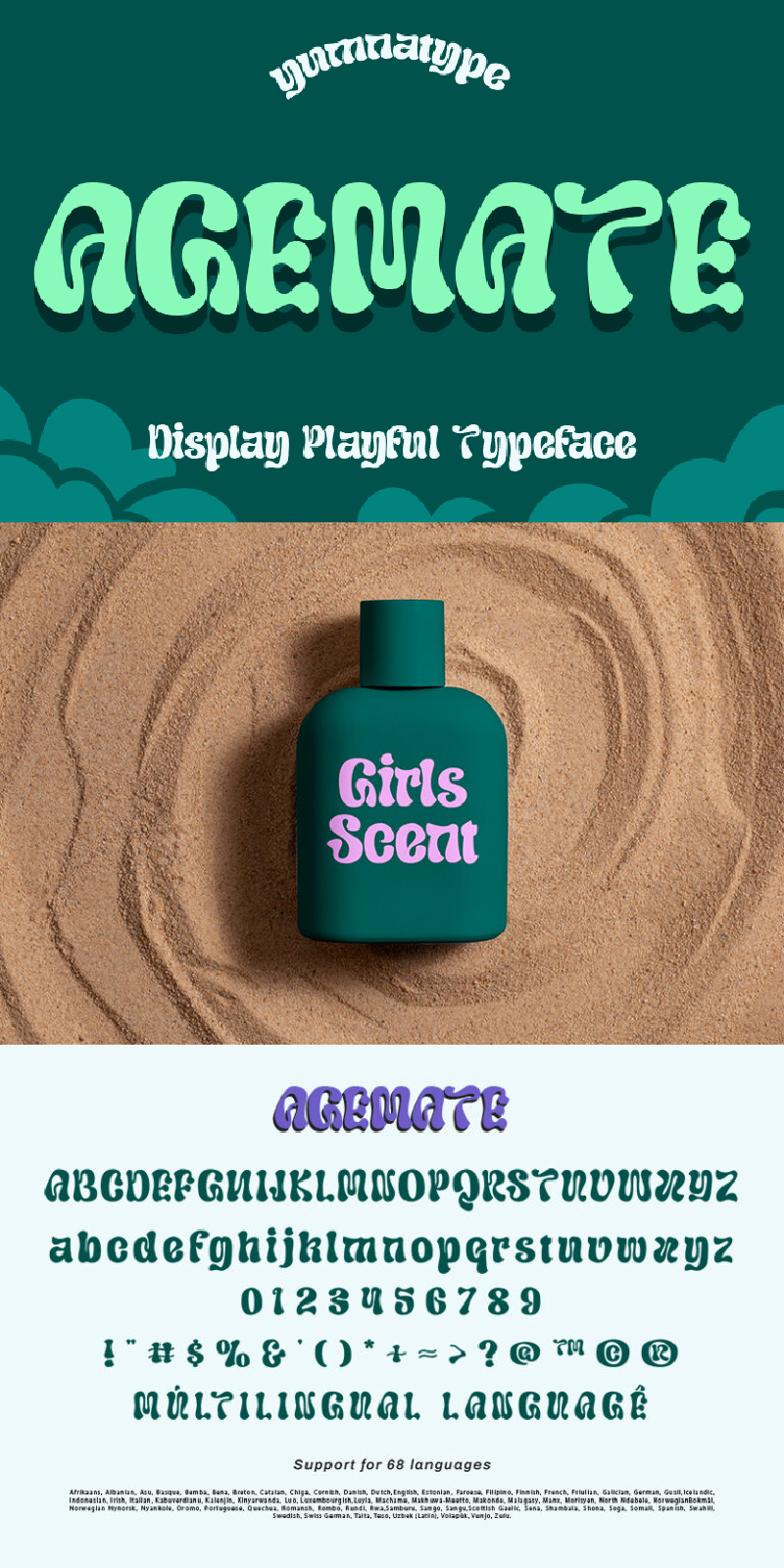
Agemate Font
About Agemate
Agemate is a quirky serif display font that brings a playful touch to your designs. With its unique style and lively appearance, this font is perfect for projects that need a dash of creativity and fun. Each letter in Agemate is crafted with playful shapes and quirky details, giving it a sense of personality and whimsy.
The uneven outline adds to its handcrafted feel, adding a touch of spontaneity and creativity to the overall design. What sets Agemate apart is its ability to inject energy and vitality into any design project. In addition, enjoy the features here.
Agemate fits in headlines, logos, posters, flyers, branding materials, print media, editorial layouts, and many more designs. Find out more ways to use this font by taking a look at the font preview.